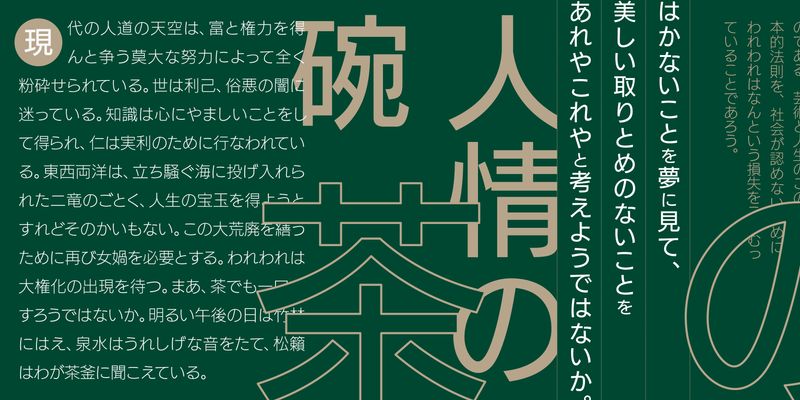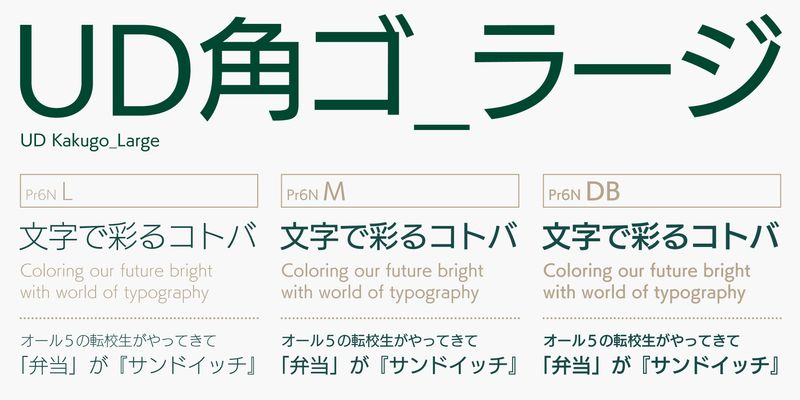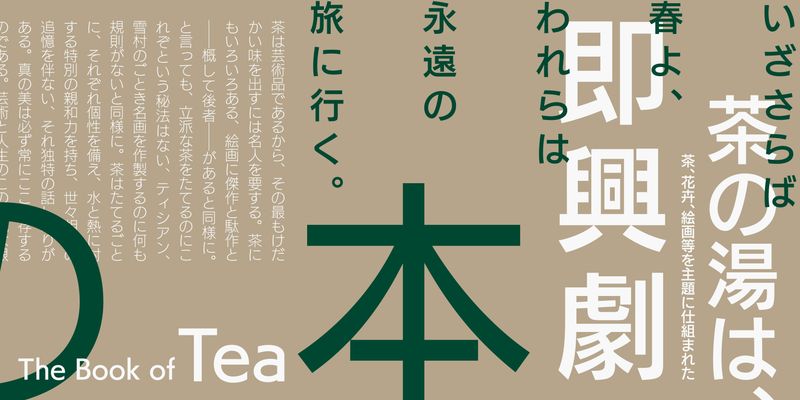
Based on “New Rodin,” which is most suitable for display, FOT-UDKakugo Large Pr6N is a modern gothic (sans-serif) typeface with the size of kana characters adjusted to bring them closer to the size of kanji (ideographic) characters and its alphanumeric characters redesigned to enhance the visibility and legibility. Similar design adjustments were made to the voiced and half-voiced sound marks in some of the heavier weights in this family.